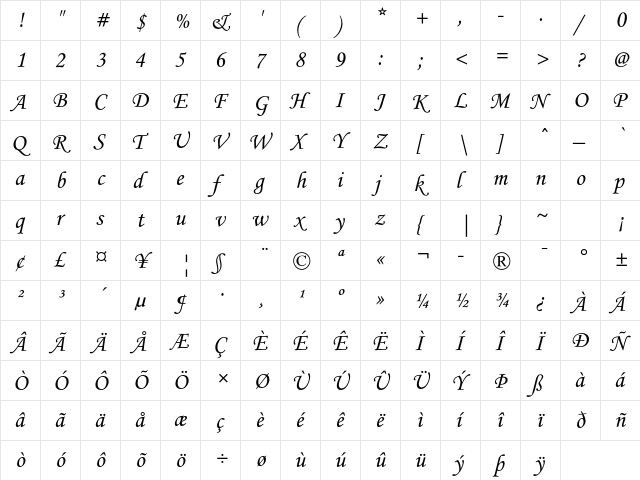
Corsiva MT Std Regular
Design Context for Corsiva MT Std Typeface
Corsiva MT Std takes a measured approach to typography — its balanced proportions and neutral character make it a reliable workhorse for both digital and print work.